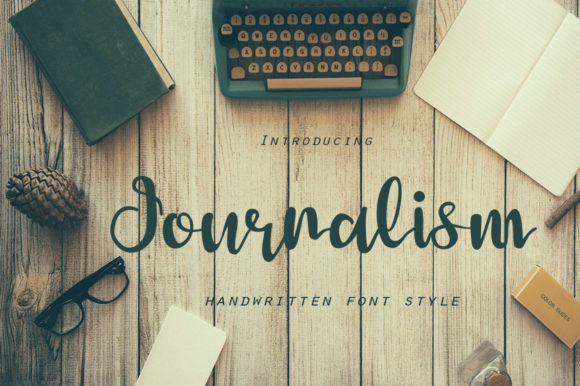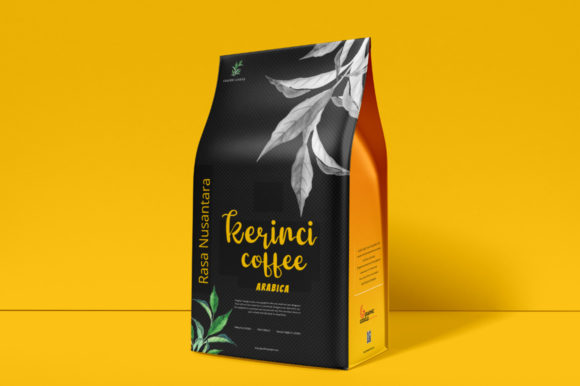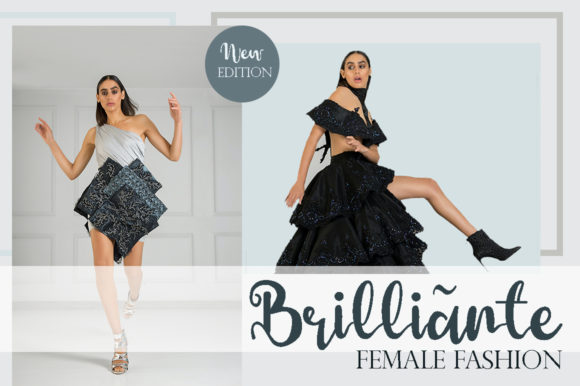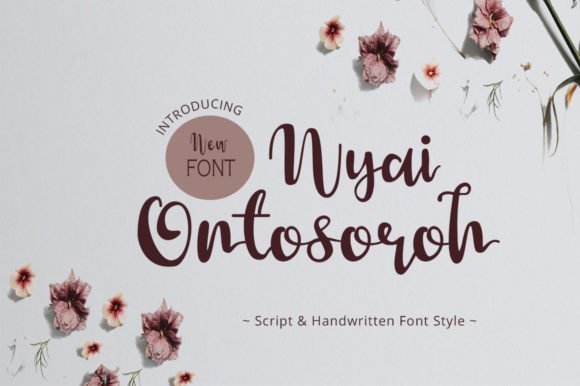
Introduction to Nyai Ontosoroh Font
Nyai Ontosoroh is a beautiful handwritten font.
Its casual charm makes it appear wonderfully down-to-earth, readable and, ultimately, incredibly versatile Gratefully will look outstanding in any context, whether it’s being used on busy backgrounds or as a standalone headline.